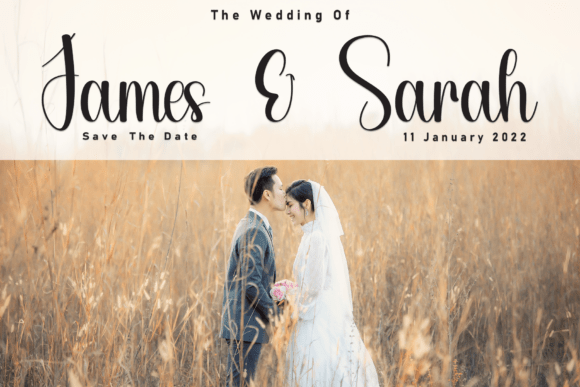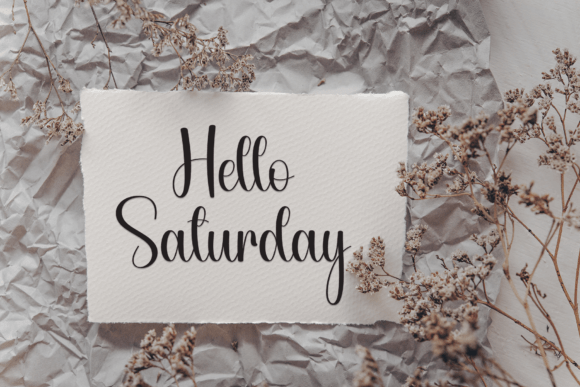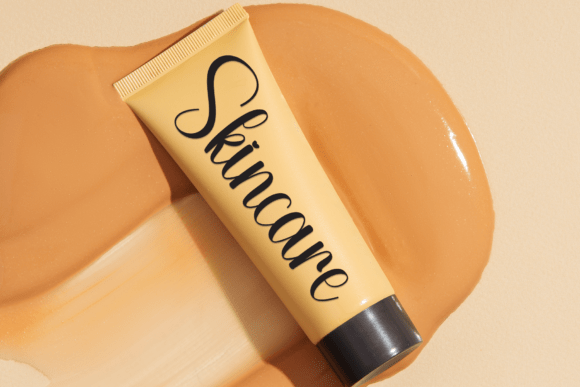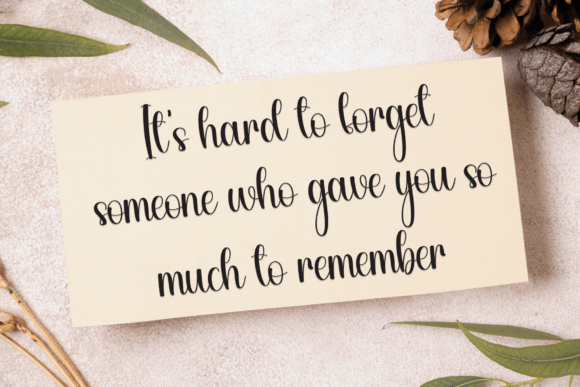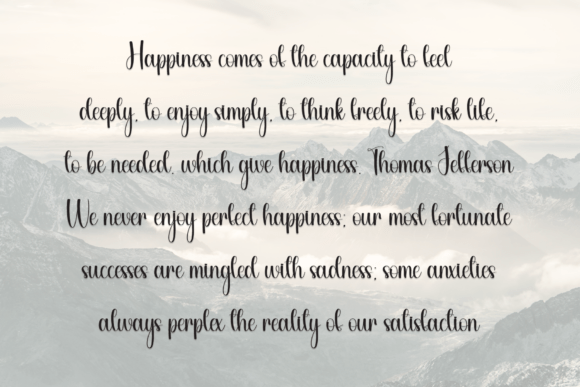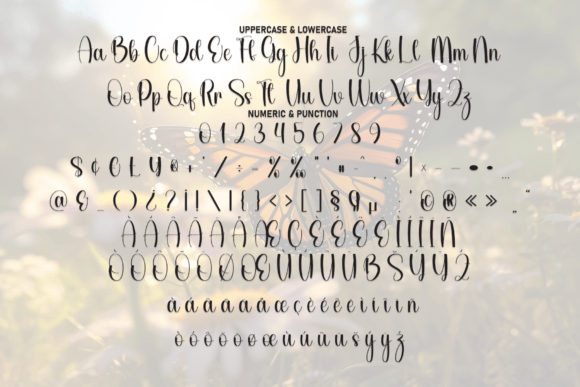
The Whimsical World of Butterfly Font
I still remember the design project that led me to discover the enchanting Butterfly Font. I was working on a romantic wedding stationery set for a client who wanted a elegant, yet playful feel. As I scrolled through font libraries, I stumbled upon this beautiful script font that seemed to capture the essence of a whimsical butterfly. The fluid, rhythmic personality of Butterfly Font immediately won me over, and I knew I had found the perfect fit for my project.
So, what makes Butterfly Font so special? Let’s dive into the details!
- ✨ Elegant and whimsical script font with a fluid, rhythmic personality
- ✅ High-contrast visual rhythm with thick, grounded downstrokes and delicate, wispy connectors
- 💕 Expansive, looping ascenders and a delicate heart-shaped flourish that floats above the lowercase letters
- 🎨 Perfect for beauty branding, boutique floral shop identities, romantic wedding stationery, and creative editorial titles
While Butterfly Font is a stunning addition to any design project, there are a few things to keep in mind:
- 🤔 Limited use of uppercase letters, which may require creative workarounds for emphasis
- ⚠️ Some characters may not be suitable for body text due to their elegant, yet delicate nature
Butterfly Font was designed with the intention of capturing the carefree, whimsical nature of a butterfly in flight. The designer’s inspiration came from the intricate patterns and movements of butterflies, which are reflected in the font’s expansive, looping ascenders and delicate flourishes.
Q: What type of projects is Butterfly Font best suited for?
A: Butterfly Font is perfect for beauty branding, boutique floral shop identities, romantic wedding stationery, and creative editorial titles.
Q: Can I use Butterfly Font for body text?
A: While Butterfly Font is stunning, its delicate nature makes it more suitable for headlines and titles. For body text, consider a more legible font.
Q: Does Butterfly Font support OpenType features?
A: Yes, Butterfly Font supports OpenType features, including glyphs, stylistic alternates, and more.